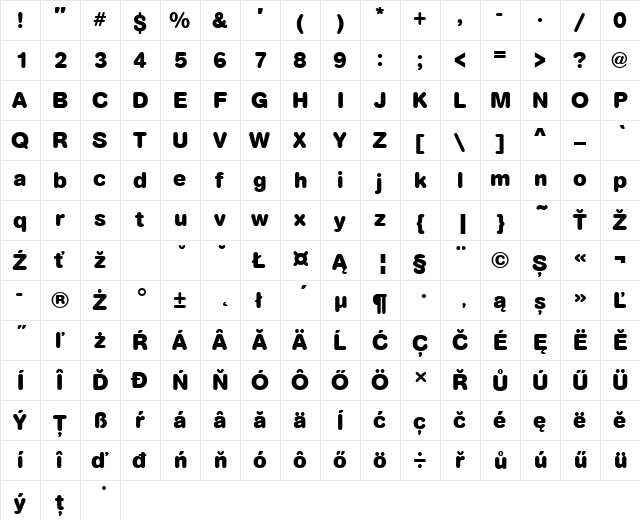
AcciusBucRouDEE Bold
Design Context for AcciusBucRouDEE Typeface
AcciusBucRouDEE offers clean, dependable letterforms without strong stylistic allegiance, making it a practical choice for designers who need flexibility. Its bold stroke weight gives it real presence on the page.